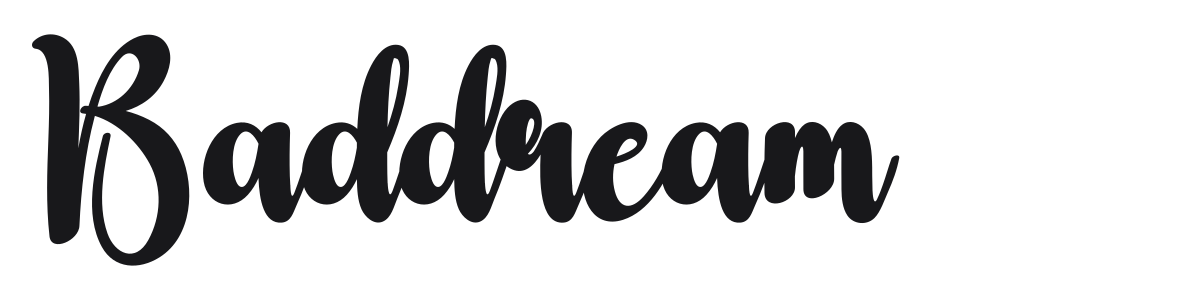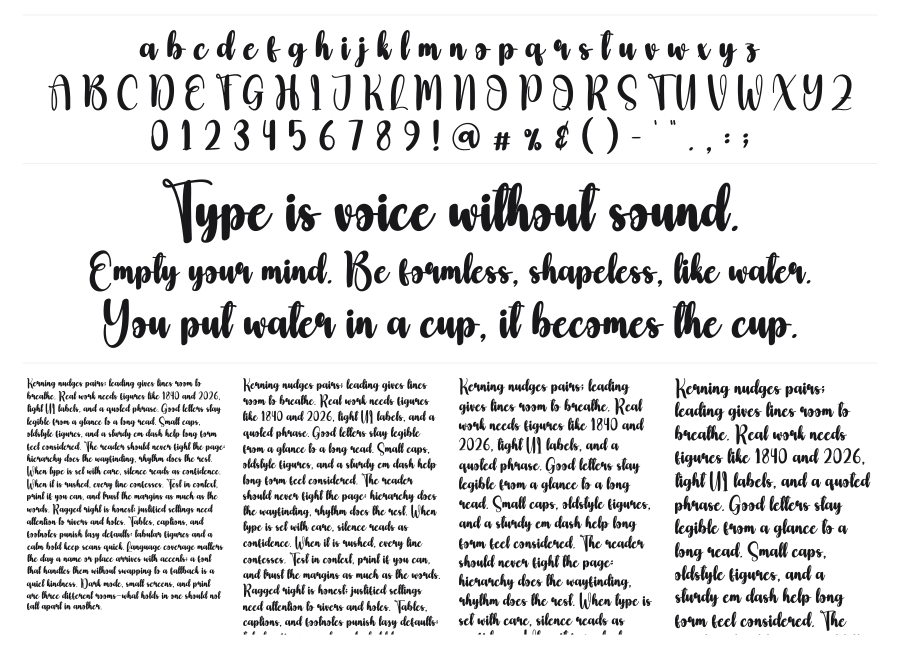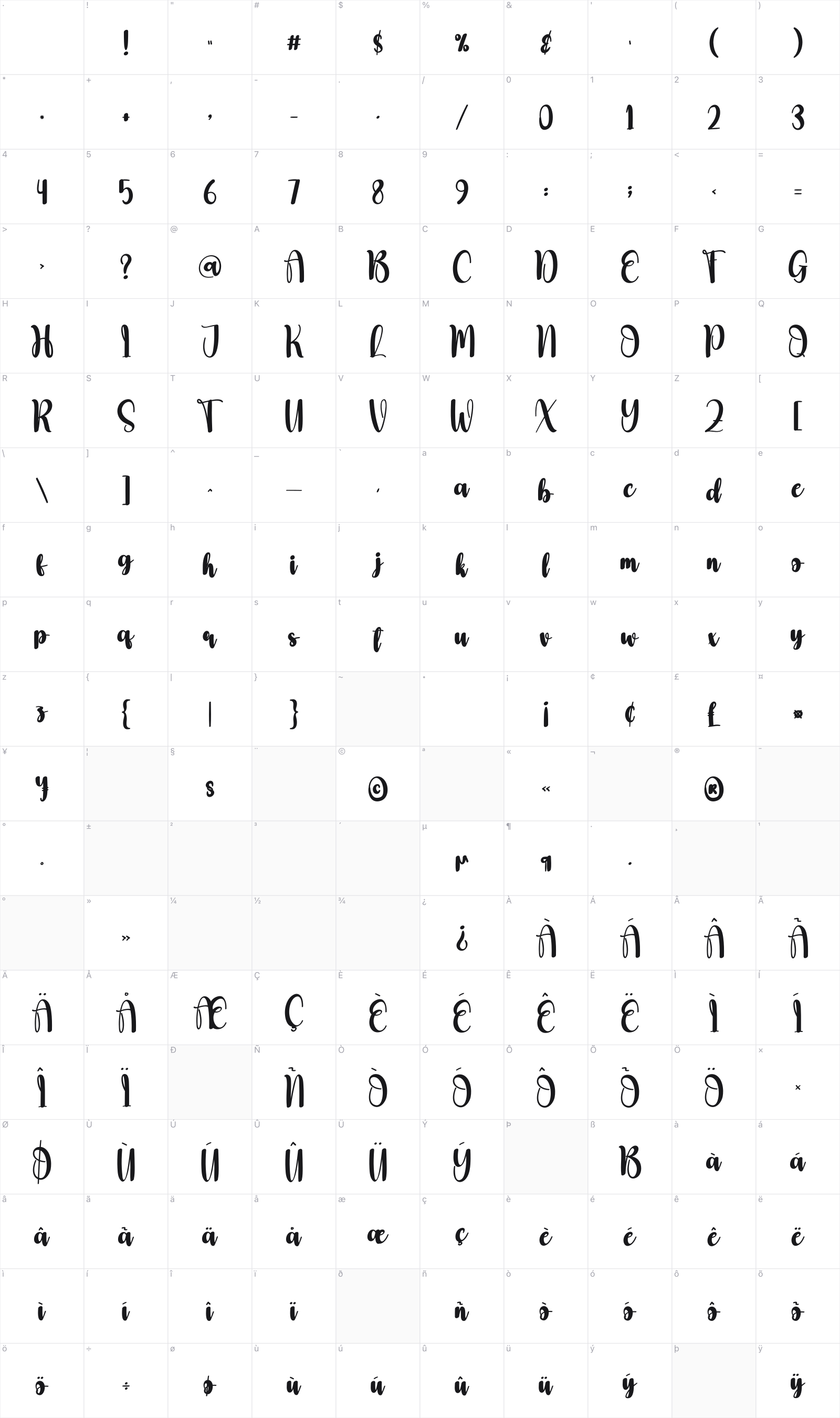
Baddream
Baddream is a bold casual script with lively stroke contrast and a confident hand-lettered energy. Thick brush-like downstrokes pair with delicate hairlines, and the bouncy baseline keeps the whole composition feeling spontaneous rather than stiff. It reads well at large sizes across wedding stationery, packaging, social media graphics, and lifestyle branding.